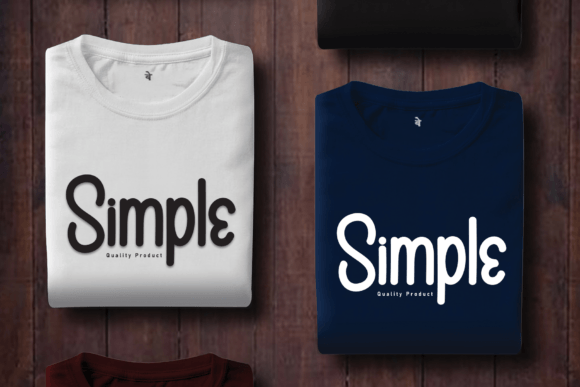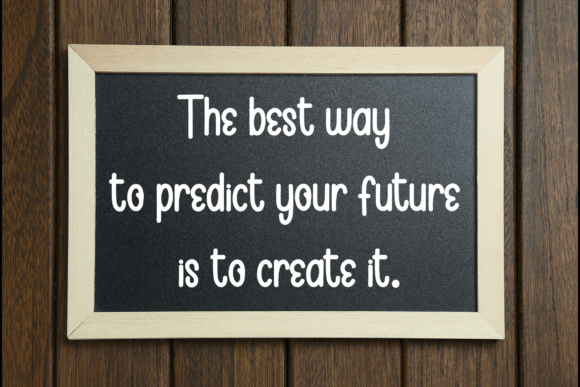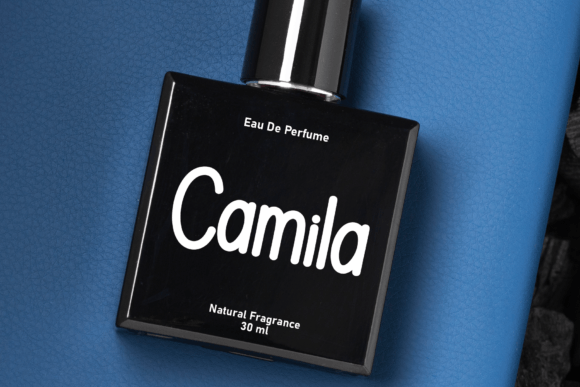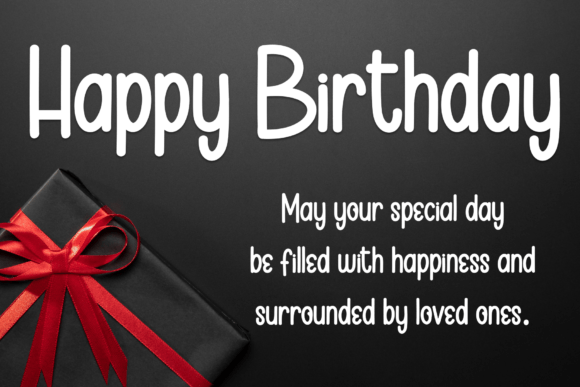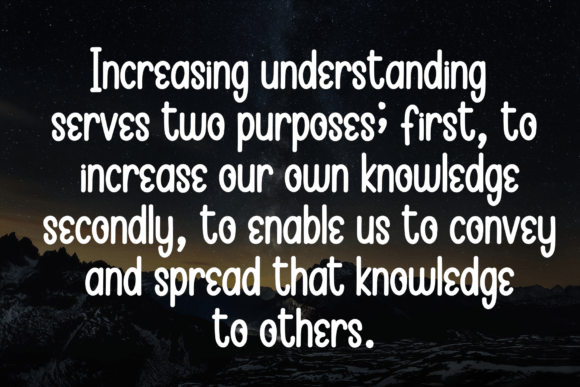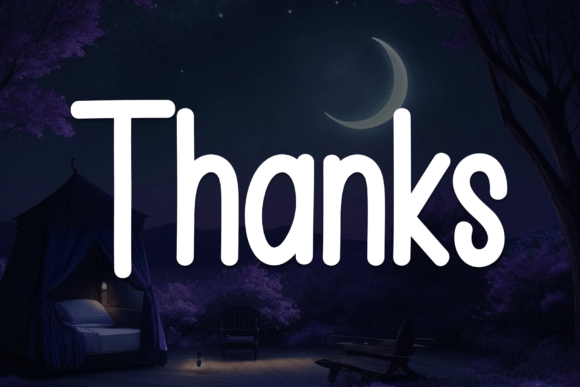
Introducing Happy Night Font: Add a Sweet and Friendly Touch to Your Designs
Are you looking for a font that can add a playful and whimsical touch to your designs? Look no further than Happy Night Font! This sweet and friendly handwritten font is perfect for creating wedding invitations, cards, and other designs that require a fun and personal touch. In this article, we’ll explore the features and benefits of Happy Night Font, and show you how to make the most of this delightful font in your designs.
What is Happy Night Font?
Happy Night Font is a beautiful, handwritten font that exudes warmth and friendliness. Its cute and fun design makes it ideal for a wide range of creative projects, from wedding invitations and birthday cards to social media graphics and blog posts. This font is perfect for designers and crafters who want to add a personal touch to their work and create a lasting impression on their audience.
Key Features of Happy Night Font
- Handwritten design: Happy Night Font features a beautiful, handwritten design that is both sweet and elegant.
- Cute and fun: This font is perfect for designs that require a playful and whimsical touch.
- Versatile: Happy Night Font can be used for a wide range of creative projects, from wedding invitations to social media graphics.
- Easy to read: Despite its playful design, Happy Night Font is easy to read and understand, making it perfect for body text and headings.
Use Cases for Happy Night Font
Happy Night Font is a versatile font that can be used for a wide range of creative projects. Here are some use cases to get you started:
- Wedding invitations: Add a personal touch to your wedding invitations with Happy Night Font.
- Birthday cards: Create custom birthday cards with Happy Night Font and make the occasion even more special.
- Social media graphics: Use Happy Night Font to create engaging social media graphics that stand out from the crowd.
- Blog posts: Add a playful touch to your blog posts with Happy Night Font and make them more engaging.
Tips for Using Happy Night Font
Here are some tips to help you make the most of Happy Night Font in your designs:
- Pair with other fonts: Pair Happy Night Font with other fonts to create a unique and interesting design.
- Experiment with colors: Try out different colors with Happy Night Font to create a design that matches your brand or occasion.
- Use it sparingly: Use Happy Night Font sparingly to create a focal point in your design and avoid overwhelming the reader.
Happy Night Font is a sweet and friendly handwritten font that can add a playful touch to your designs. With its cute and fun design, versatile use cases, and easy-to-read style, this font is perfect for designers and crafters who want to create engaging and personal designs. Whether you’re creating wedding invitations, birthday cards, or social media graphics, Happy Night Font is a great choice. So why not give it a try and see how it can elevate your designs?